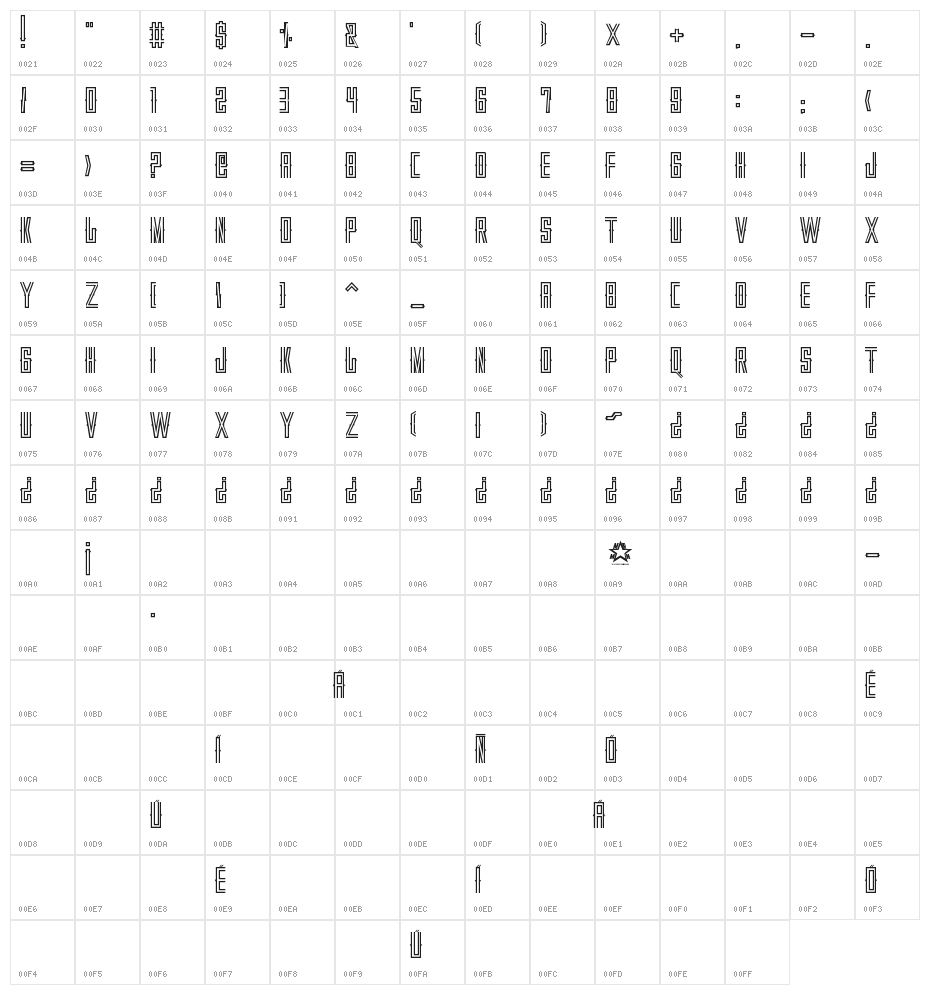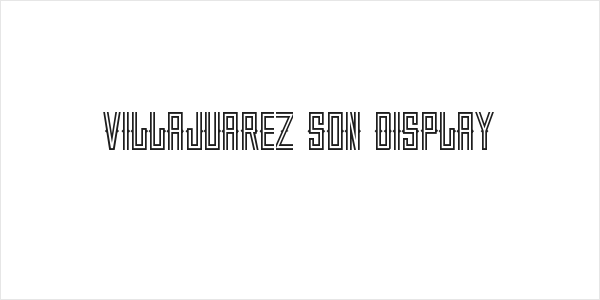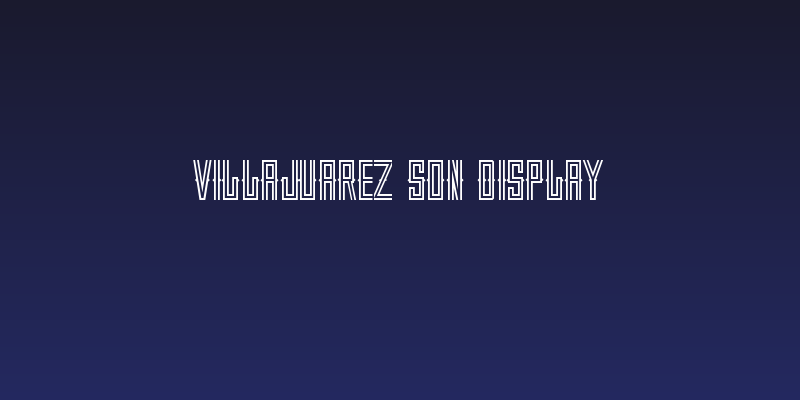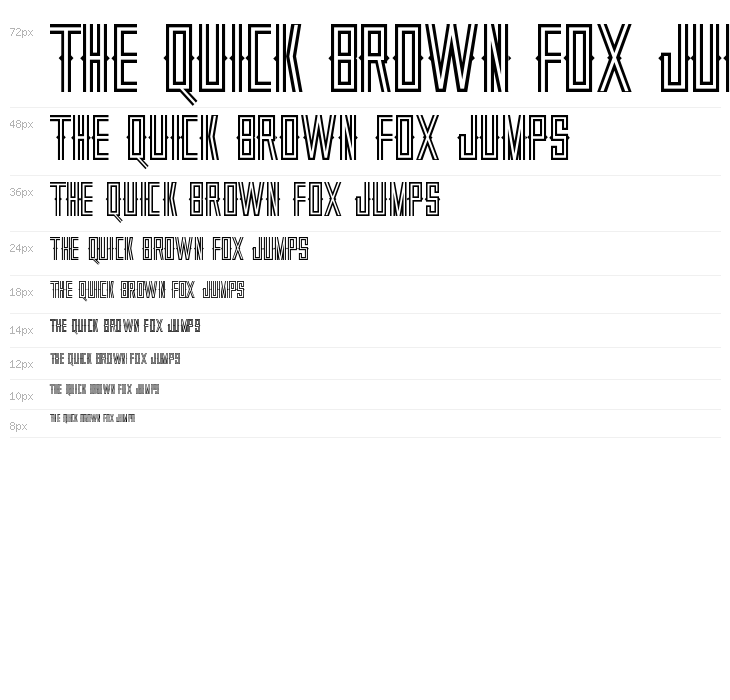
VILLAJUAREZ SON DISPLAY Font
VILLAJUAREZ SON DISPLAY Description
This font features a bold, geometric design with a distinct Art Deco influence. The characters are constructed with sharp angles and straight lines, creating a sense of symmetry and balance. Each letter is enclosed within a unique, decorative frame that adds an intricate touch to the overall appearance. The font's structure is both modern and vintage, making it versatile for various design applications. The uppercase letters are particularly striking, with their elongated forms and consistent line thickness. The numerals and special characters maintain the same stylistic elements, ensuring a cohesive look across all text elements.
| Overall Style | Modern, Vintage |
| Proposed Projects | Ideal for branding, posters, and any design project that requires a vintage yet modern aesthetic. |